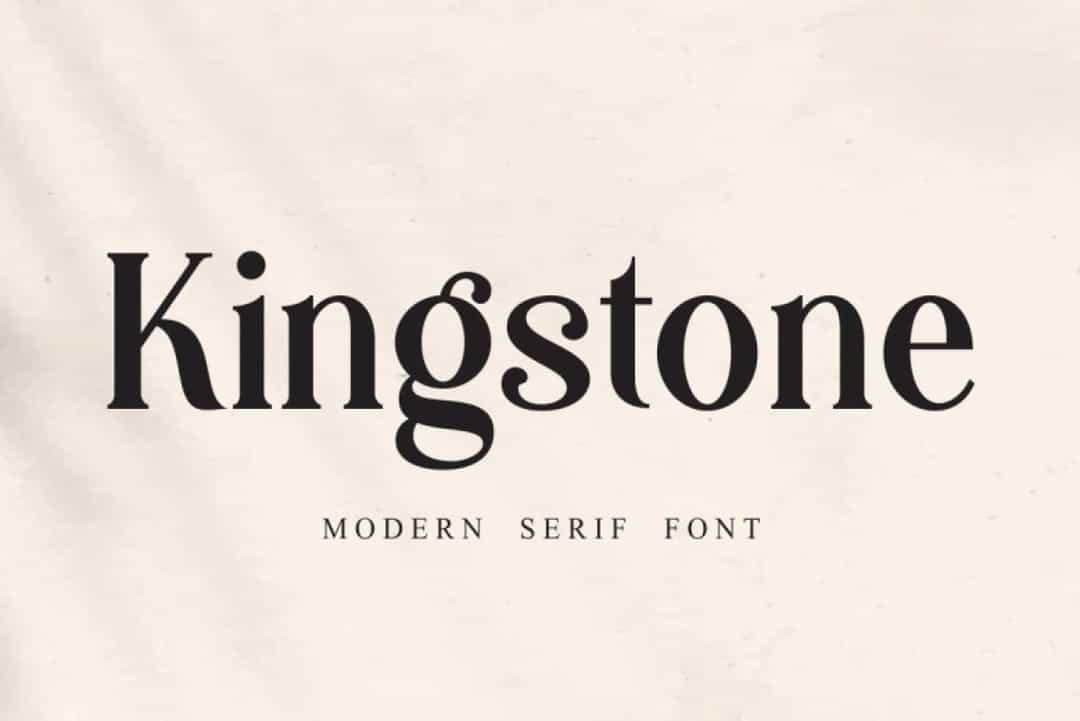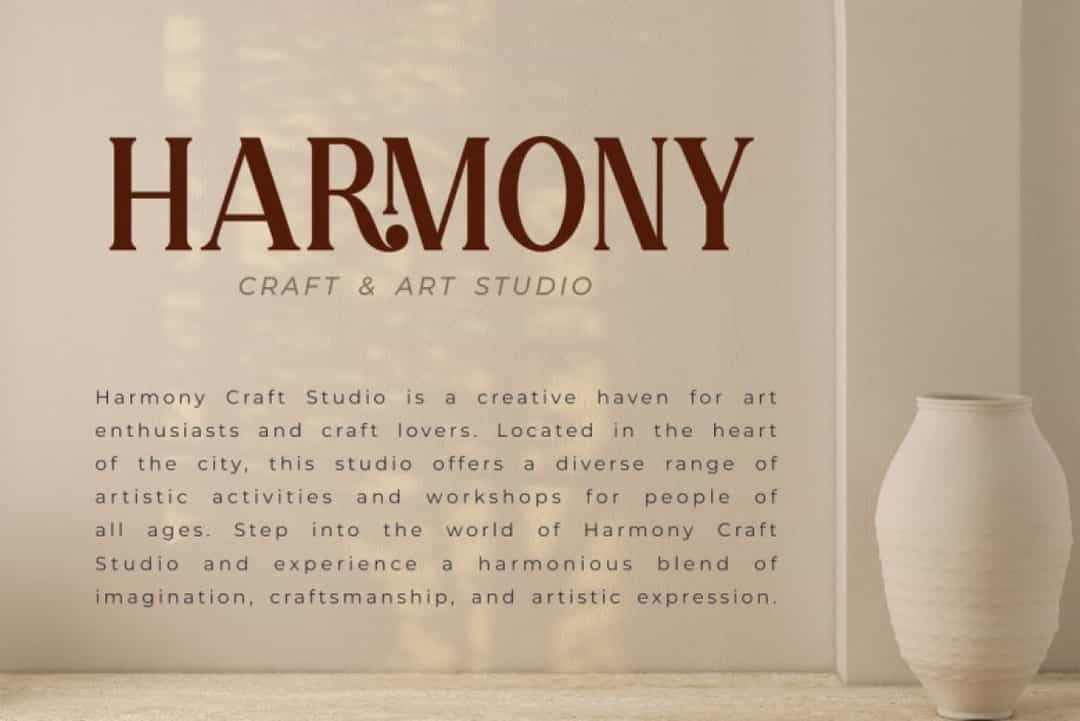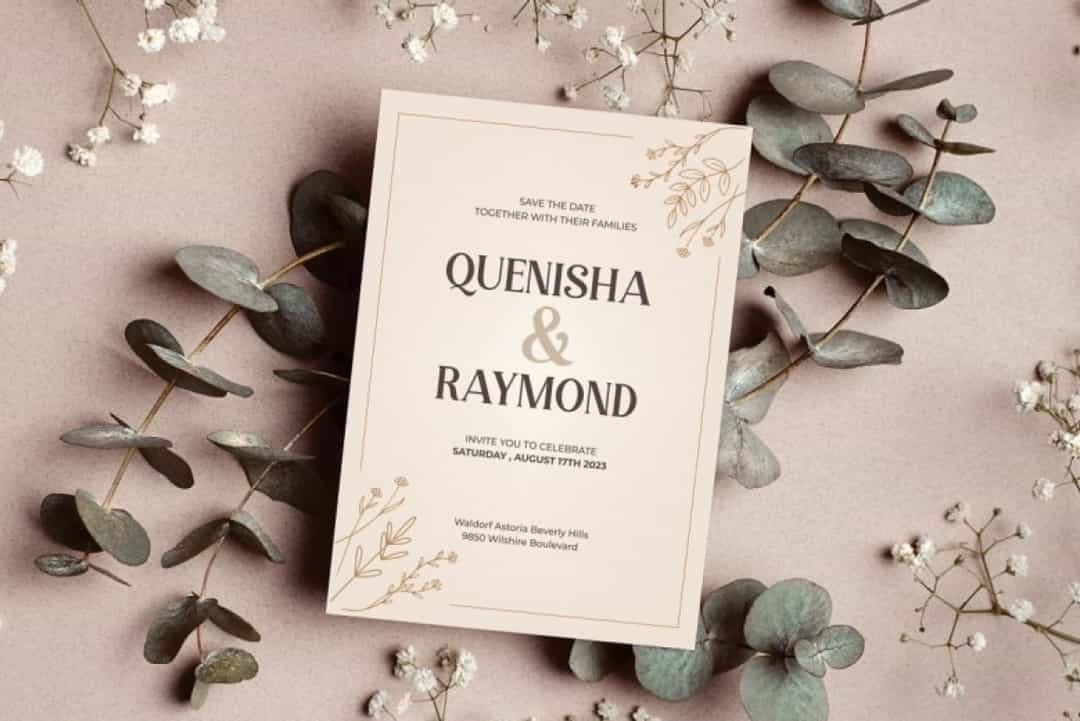
Discover Kingstone Serif Font, part of the Serif collection—a versatile and unique font perfect for adding a personal touch to your projects. Download it for free and enjoy crafting designs with style, from invitations to social media posts. This font is available exclusively for personal use, giving you the freedom to create without limits. Unlock your creativity with Kingstone Serif Font today!
“Kingstone Serif Fonts,” an elegant font which exudes strength as well as timeless beauty, stands out with its imposing appearance and stunning details to make a striking design statement. These fonts will bring quality work into every field they adorn!